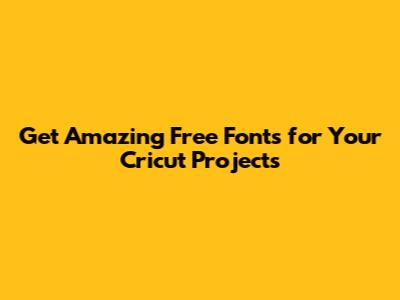
Hey crafters! So, you've got your Cricut fired up and ready to go, but you're looking to add some pizzazz to your designs with cool fonts. The good news is, you don't always need to break the bank to get awesome text for your projects! Today, we're diving deep into the world of free fonts for Cricut. I'm talking about fonts that are totally usable with your machine, making your t-shirts, mugs, signs, and all those other amazing creations stand out from the crowd. We'll explore where to find them, what to look out for, and how to get them onto your Cricut Design Space software without any hassle. Stick around, guys, because by the end of this, you'll be a font-finding pro! Let's get those creative juices flowing and make some seriously stylish crafts.
Where to Snag Free Fonts for Cricut
Alright, so you're on the hunt for those sweet, free fonts for Cricut that will make your projects pop. The internet is a treasure trove, but you gotta know where to look! My absolute favorite go-to is Dafont. Seriously, this site is a lifesaver. They have thousands of fonts categorized in a super easy-to-navigate way. You can preview them with your own text, which is a game-changer. Another fantastic resource is Font Squirrel. They focus on high-quality, free for commercial use fonts, which is super important if you ever plan on selling your creations. Then there's Google Fonts, which is fantastic for web use but also has tons of great options that work perfectly with Cricut. You'll find everything from elegant script fonts to bold, blocky letters. Don't forget about Creative Fabrica! While they have a subscription, they also offer a generous selection of freebies every single day, including fonts. Keep an eye on those daily deals, you might just snag a gem! And sometimes, you'll find amazing designers sharing their fonts for free on platforms like Etsy or their own personal blogs. Just do a quick search for "free Cricut fonts" and see what pops up. Remember, the key is to explore and save the ones you love to your personal font library. It’s like building your own secret weapon stash for crafting!
Using Fonts in Cricut Design Space: Tips and Tricks
Now that you've got your free fonts for Cricut downloaded and installed, let's talk about actually using them in Cricut Design Space to create some seriously awesome projects. When you're in Design Space and you've added a text box (by clicking the "Text" tool), you'll see the font selection panel. Here’s where your new goodies live! You'll want to make sure you're looking in the right place. Sometimes, Design Space defaults to showing you only Cricut's own fonts or system fonts. You need to switch the filter to show "All Fonts" or sometimes specifically "System Fonts" if you've installed them on your computer. This is where your downloaded and installed fonts will appear. If you have a lot of fonts (and who doesn't after a while?), searching by name is your best friend. Type in the name of the font you want, and it should pop right up. Don't be afraid to experiment with different font combinations! Mixing a script font with a block font can create a really dynamic look. Also, remember that Cricut Design Space has a "Letter Space" and "Line Space" feature. Script fonts, in particular, often need their letter spacing adjusted to connect properly. You might need to decrease the letter space to make the letters flow together beautifully. Play around with these tools – they are essential for getting that professional, polished look. For cursive or script fonts, it's often a good idea to "Weld" the letters together after you've adjusted the spacing. Welding merges the overlapping cut lines, ensuring a smooth, continuous cut. You find the Weld tool under the "Actions" panel. Finally, always do a quick visual check before cutting. Zoom in and make sure everything looks exactly how you want it. Sometimes, intricate fonts can be tricky for the machine, so a little tweaking goes a long way. Happy designing, guys!
Popular Styles of Free Fonts for Cricut
When you're browsing for free fonts for Cricut, you'll notice a huge variety of styles. It's awesome because it means there's a font out there for literally every project and every vibe. Let's chat about some of the most popular styles you'll find that work brilliantly with Cricut. First up, we have the Script Fonts. These are your elegant, flowing, handwritten-style fonts. Think elegant wedding invitations, sassy t-shirts, or beautiful gift tags. They can be super romantic, playful, or sophisticated. Just remember what we talked about – you'll often need to adjust letter spacing and weld them for a clean cut. Then there are Block Fonts (or Sans-Serif fonts). These are your bold, clean, and modern fonts. They are super legible and make a huge impact, perfect for signs, labels, or any project where clarity is key. They often come in all caps, which gives them a really strong presence. Next, we have Serif Fonts. These are the classic ones with the little 'feet' or decorative strokes at the ends of the letters. They lend a more traditional, sophisticated, or vintage feel to your designs. They can be great for a more formal look or for projects with a historical theme. Don't forget Hand-drawn or Doodly Fonts! These are super fun and quirky, perfect for kids' crafts, playful quotes, or adding a unique, personalized touch. They often have a charmingly imperfect look that’s hard to beat. Finally, there are Stencil Fonts, which are designed with gaps in the letters so they can be cut from a stencil material without the insides falling out. These are perfect for painting projects and creating that authentic stencil look. Exploring these different styles will really help you elevate your Cricut game and match the perfect font to whatever you're creating. Go wild and have fun with it!
Final Thoughts on Free Fonts for Cricut
So there you have it, crafty pals! We've covered a ton of ground on getting your hands on awesome free fonts for Cricut. From where to find them – like the amazing Dafont, Font Squirrel, and Google Fonts – to the critical importance of checking those font licenses for commercial use, we've covered the essentials. Remember to download, install correctly, and restart Design Space – that little step makes all the difference! Experimenting with different font styles and using the spacing and welding tools in Design Space will really take your projects to the next level. Having a great library of fonts is like having a secret weapon for your crafting business or hobby. It allows you to personalize everything and create truly unique items that stand out. Don't be afraid to explore, save your favorites, and most importantly, have fun with it! Happy crafting, and I can't wait to see what amazing things you create with your newfound font knowledge!